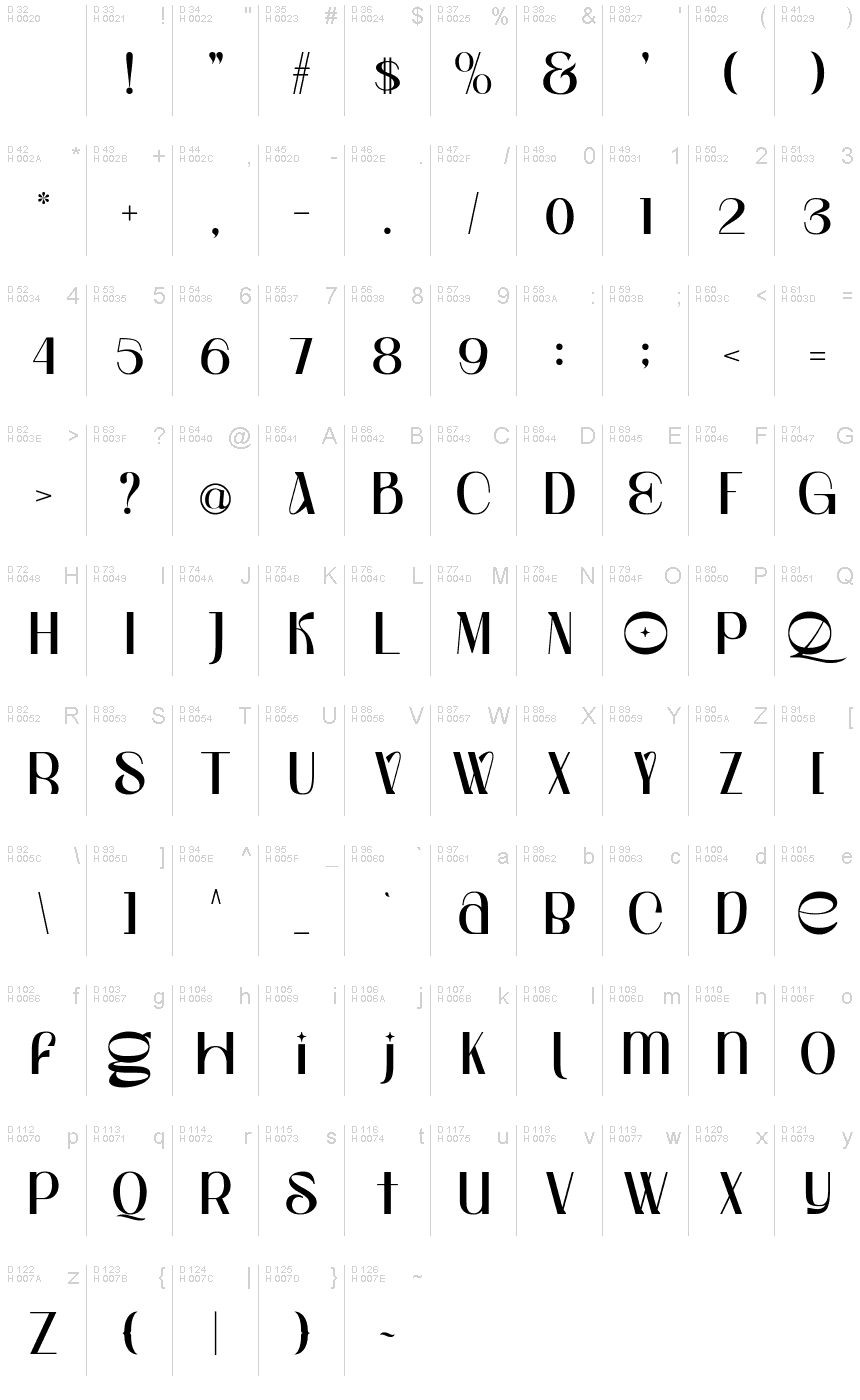
Victory History Demo Regular
Victory History, designed by madeDeduk, is a retro display font that exudes vintage glamour and timeless elegance. With its semi-light weight, this typeface is perfect for creating headlines, logos, and posters that demand attention without being too heavy-handed. Whether you're designing for a fashion brand or a luxury hotel, Victory History's classic aesthetic will add sophistication to any project. Its unique curves and bold shapes evoke the art deco style of the 1920s, making it an ideal choice for vintage-inspired designs. Elevate your next project with Victory History - the ultimate font for those looking to make a lasting impression.